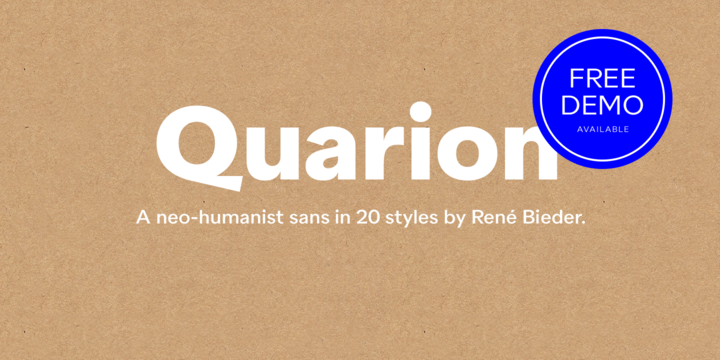
Quarion Font Family
Great, that was my initial feeling as you will be testing a premium font, with 2 free styles. Introducing Quarion Font Family! Quarion is a sans serif font designed by Rene Bieder. Quarion is a clean, neo-humanist sans with a contemporary geometric approach. Its design started as an exploration of geometric fonts from the early 20th century, like Futura, Neuzeit Grotesk or Recta which allows the typeface to generate an inviting but sophisticated feel on the page.